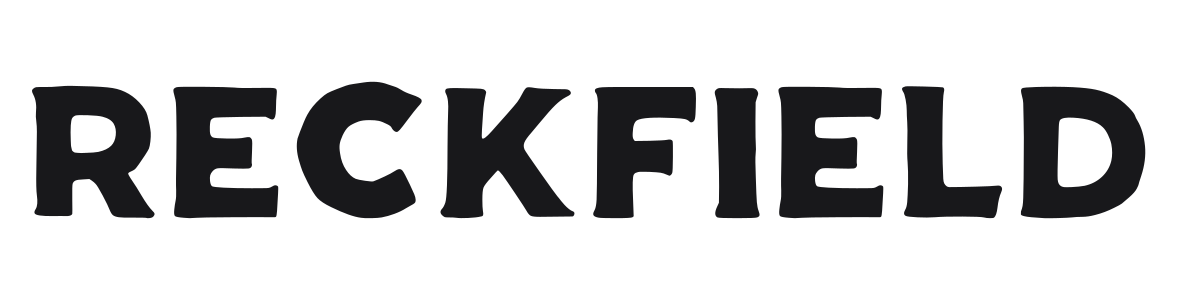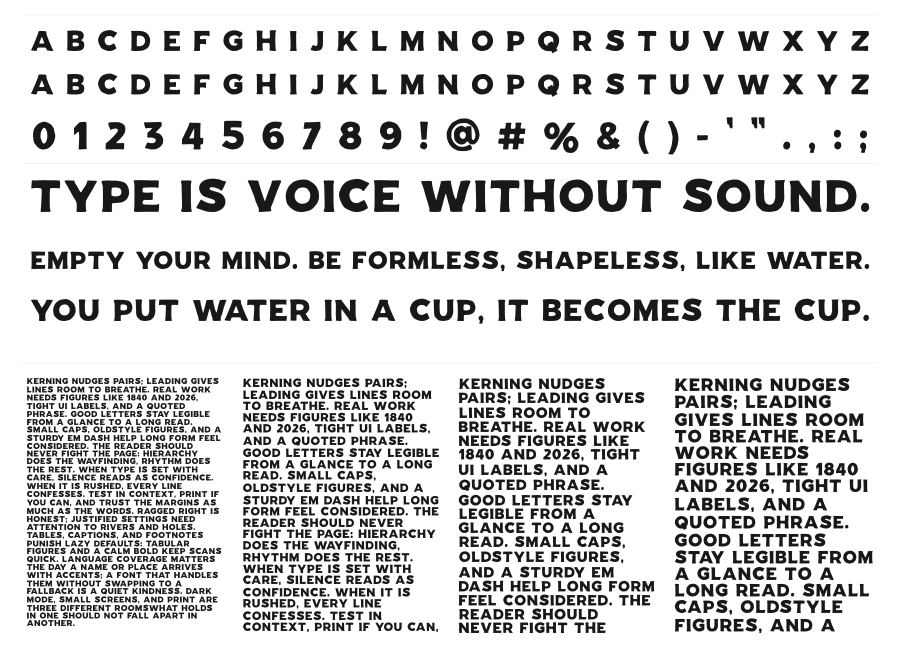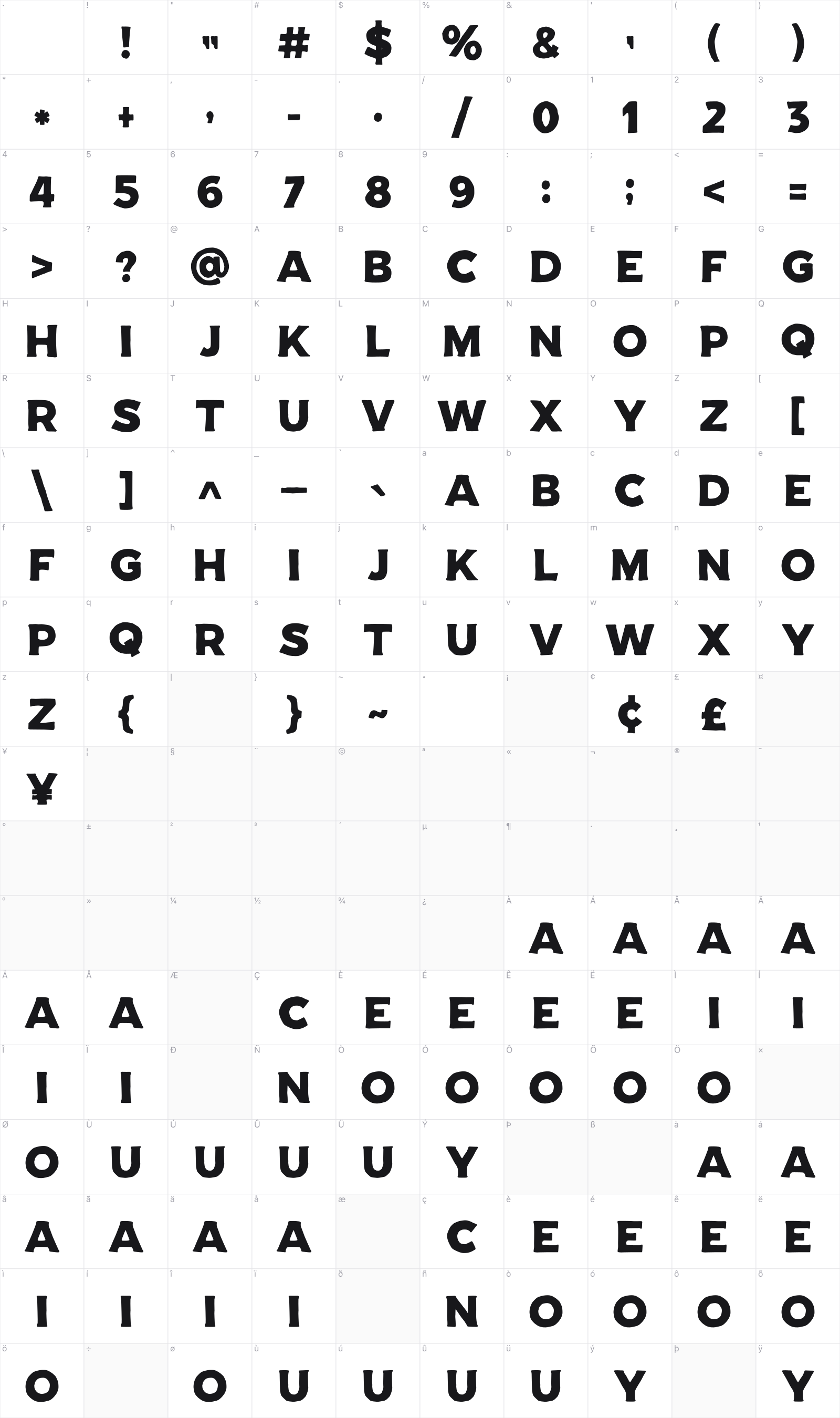
Reckfield
Reckfield is a bold geometric sans-serif with heavy, wide strokes and near-monoweight construction. The letters carry a confident solidity balanced by slightly rounded terminals that keep the design from feeling aggressive. It works well wherever a headline needs weight and presence without sacrificing readability.